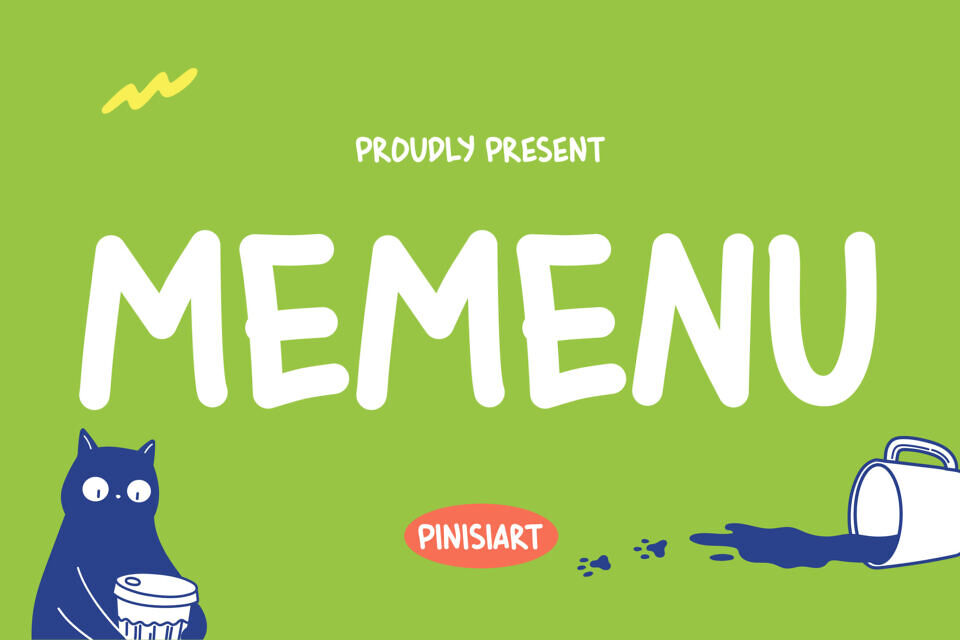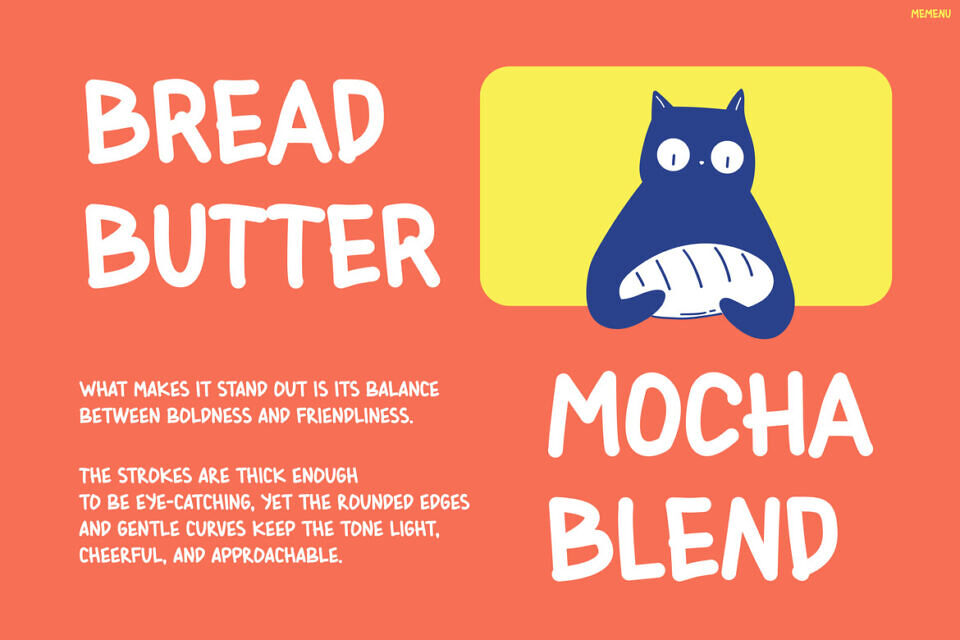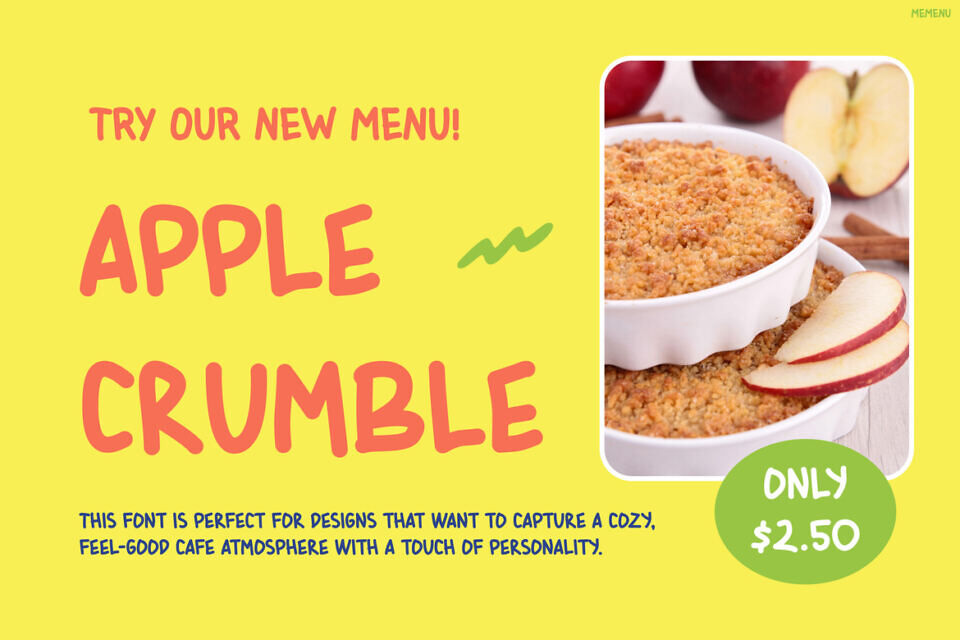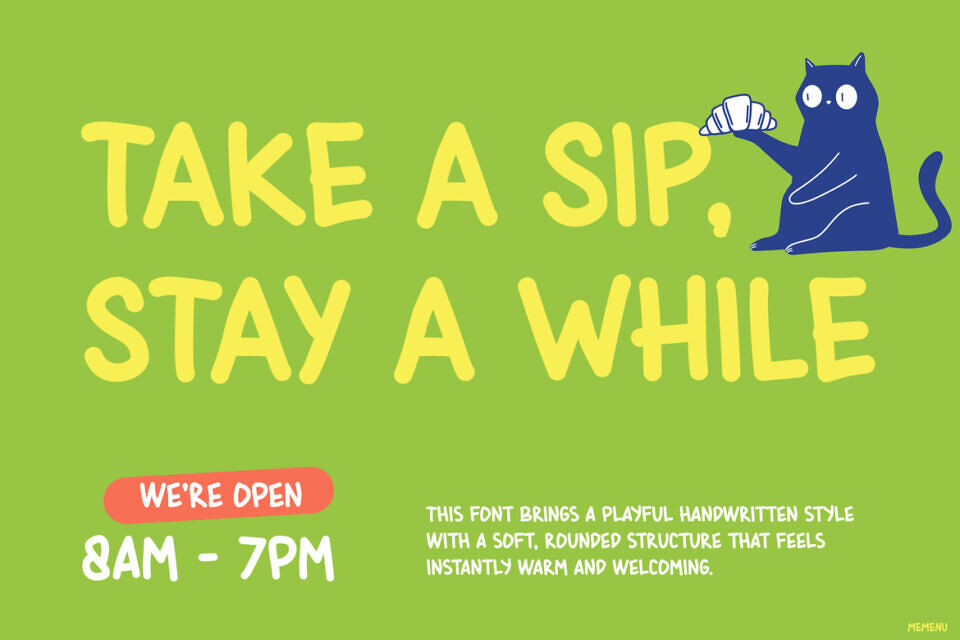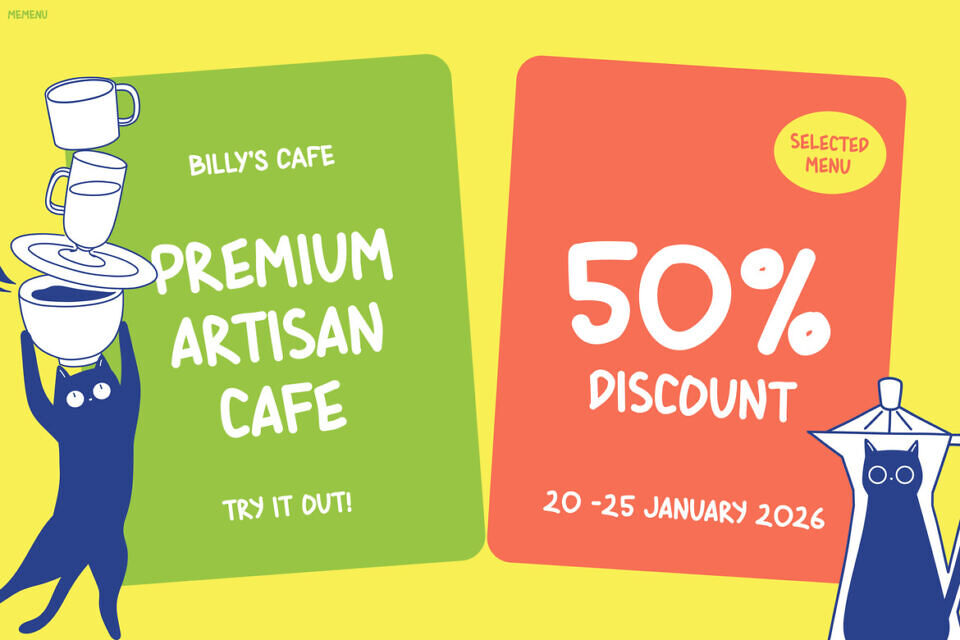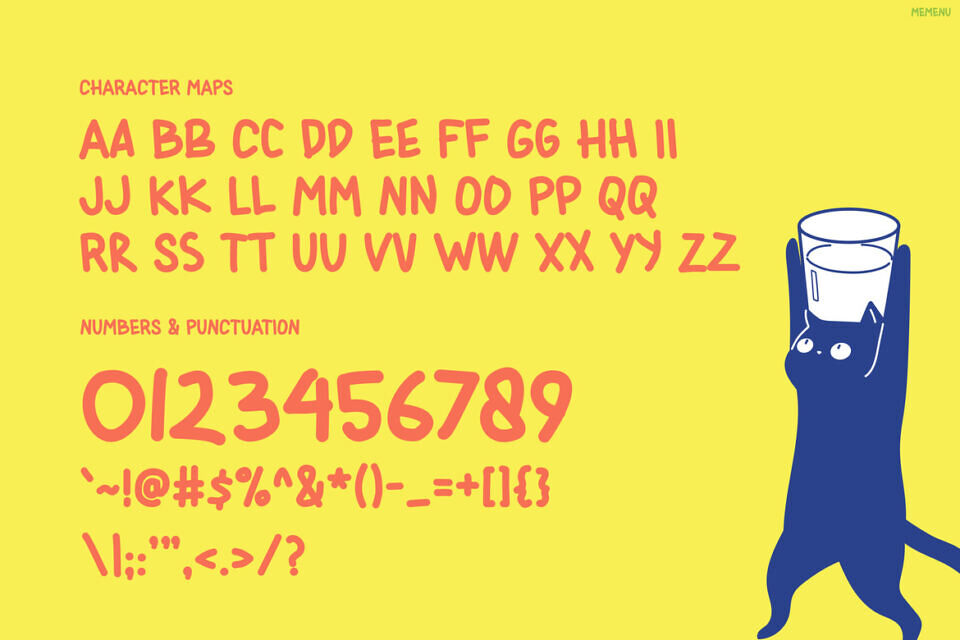
MEMENU is a cheerful and playful typeface designed to bring fun and personality into every design. At first glance, its rounded shapes and hand-drawn style create a warm and friendly vibe.
Moreover, the slightly imperfect strokes give it a cute and natural look that feels lively and approachable. Because of this playful aesthetic, the font instantly grabs attention while still staying easy to read. In addition, its balanced structure makes it perfect for both bold headlines and casual text.